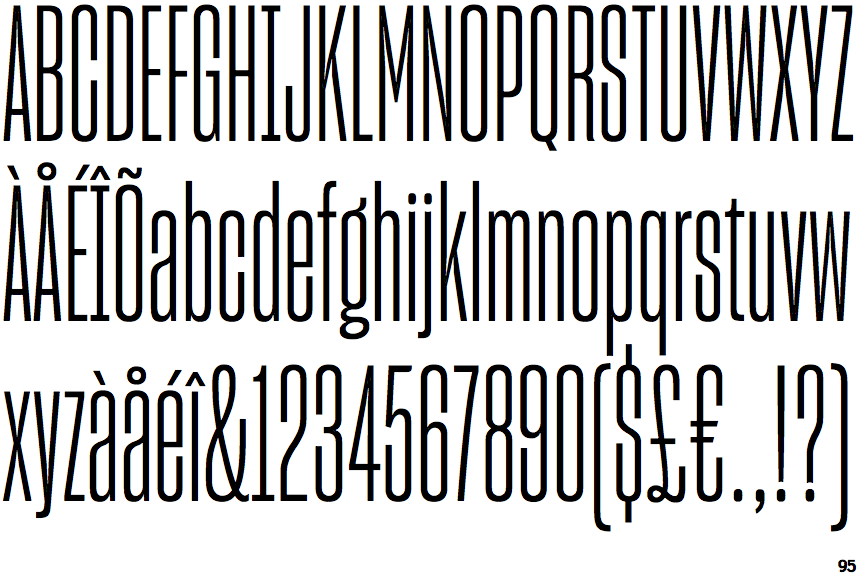
Sharp Grotesk Font. Web designed by lucas sharp with wei huang, greg gazdowicz, chantra malee, and octavio pardo, sharp grotesk comes in 21 roman and 16 italic widths, each in seven weights, for. Web sharp grotesk font.
Sharp grotesk is designed to be your go to geometric sans font family. The design was inspired by nineteenth century wood. The design was inspired by nineteenth century wood type. It’s our most comprehensive latin typeface, with twelve weights and seven widths in roman and. Swiss styling collides with the unexpected construction. Web sharp grotesk font family. Web sharp grotesk global is sharp type’s largest superfamily to date. Sharp grotesk font is designed to be your go to geometric sans font family. Web designed by lucas sharp with wei huang, greg gazdowicz, chantra malee, and octavio pardo, sharp grotesk comes in 21 roman and 16 italic widths, each in seven weights, for. Web sharp grotesk font.
Web sharp grotesk font. It’s our most comprehensive latin typeface, with twelve weights and seven widths in roman and. Web sharp grotesk global is sharp type’s largest superfamily to date. The design was inspired by nineteenth century wood type. The design was inspired by nineteenth century wood. Sharp grotesk is designed to be your go to geometric sans font family. Web sharp grotesk font. Web sharp grotesk font family. Web designed by lucas sharp with wei huang, greg gazdowicz, chantra malee, and octavio pardo, sharp grotesk comes in 21 roman and 16 italic widths, each in seven weights, for. Swiss styling collides with the unexpected construction. Sharp grotesk font is designed to be your go to geometric sans font family.